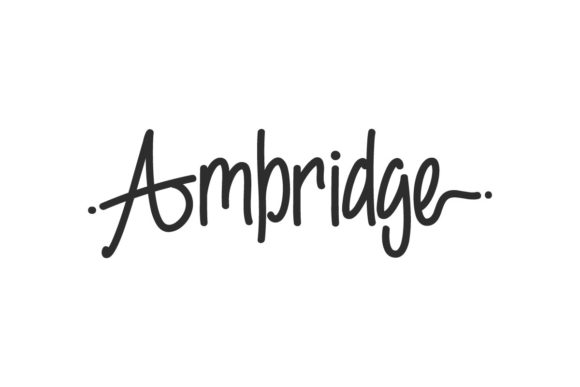
The Ambridge Font: A Stylish Handwritten Delight
I’ll never forget the moment I stumbled upon the Ambridge font. I was working on a wedding invitation project for a client, and I was struggling to find the perfect font that would capture the elegance and romance of the occasion. As I scrolled through my font library, I came across Ambridge, and it was love at first sight! ✨ Its beautiful, handwritten style instantly caught my attention, and I knew I had found the one.
- ✨ Beautifully crafted handwritten style with a touch of elegance
- ✅ Wide range of uses, from wedding invitations to social media posts
- ✅ Easy to pair with other fonts for a unique look
While Ambridge is an amazing font, there are a few things to keep in mind: 🤔
- ⚠️ Some characters may not work well in all contexts, such as in tables or spreadsheets
- ⚠️ Limited availability of certain OpenType features, such as ligatures
The Story Behind Ambridge
Ambridge was designed by a talented font designer who wanted to create a beautiful, handwritten font that would capture the elegance and romance of traditional wedding invitations. With inspiration from classic calligraphy and modern script fonts, Ambridge was born. 💕
| Font Name | Ambridge Font |
| Author | NihStudio |
Q: What is the Ambridge font best used for?
A: Ambridge is a versatile font that can be used for a wide range of projects, including wedding invitations, social media posts, and stationery.